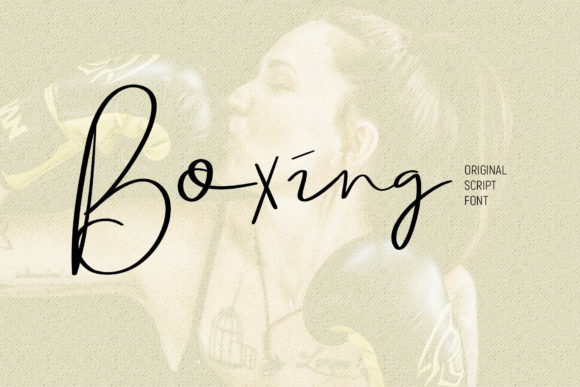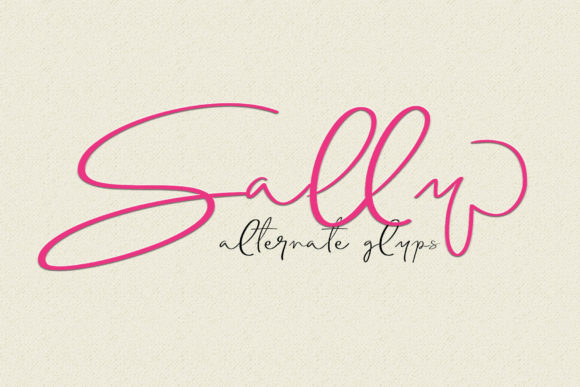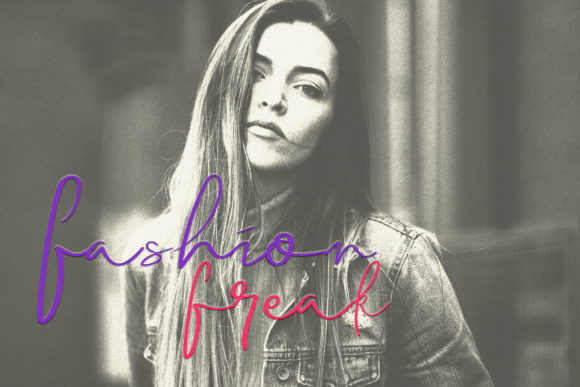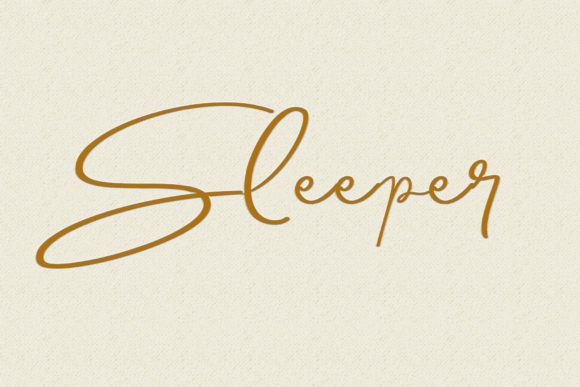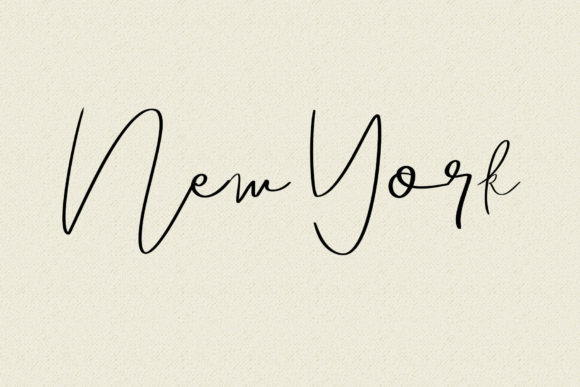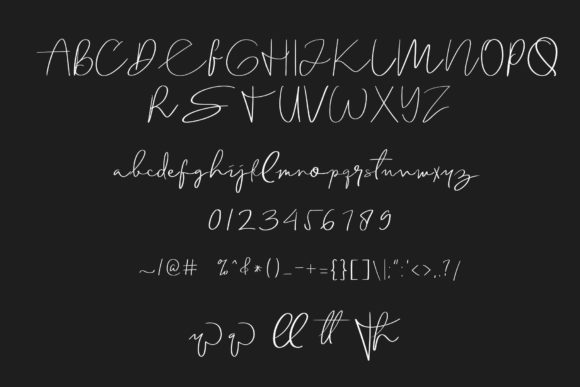
Solitaire Font
About Solitaire Font
The Solitaire is an elegant script font. It’s handwritten style makes it perfect for adding an authentic look to your designs.